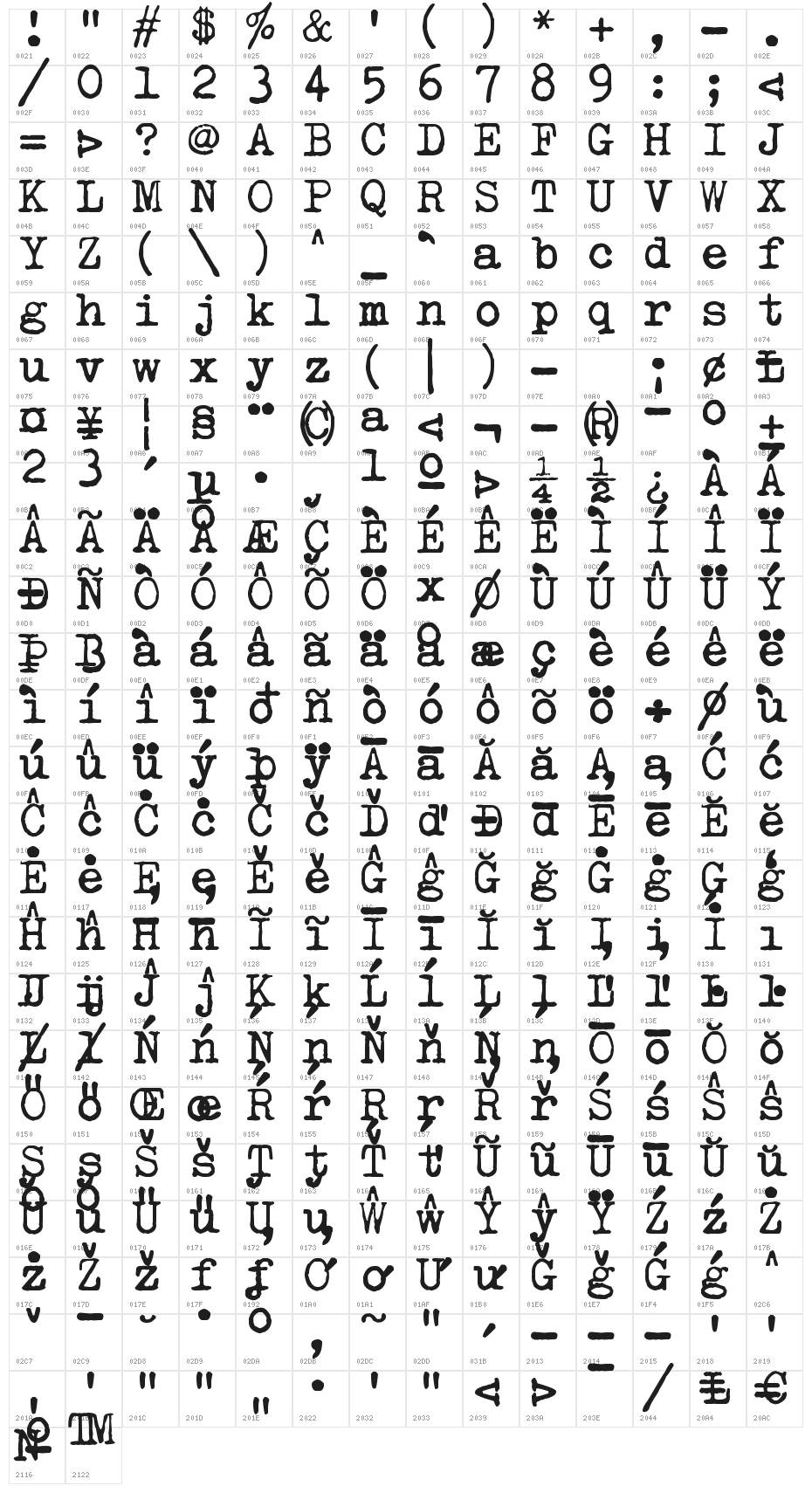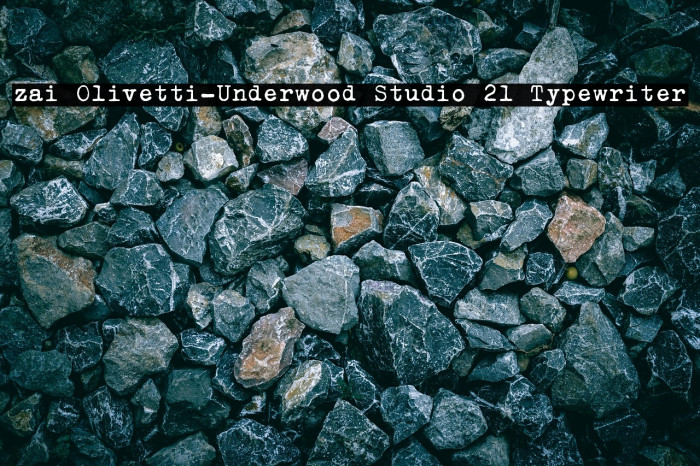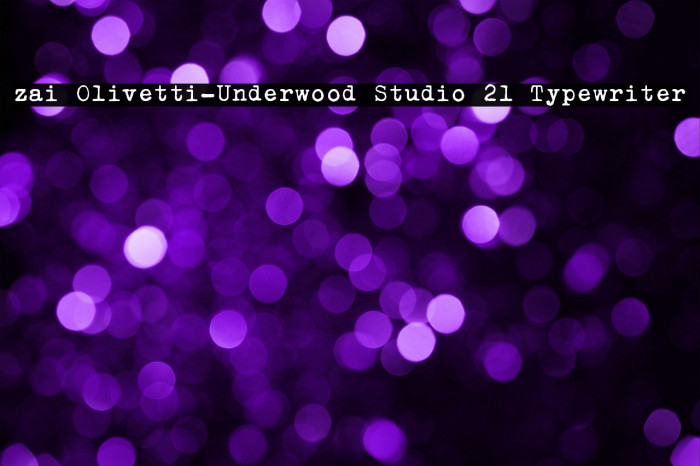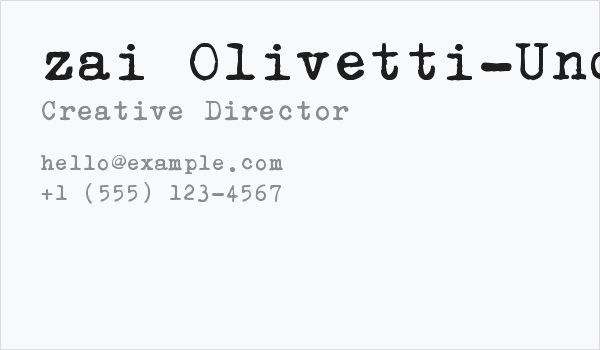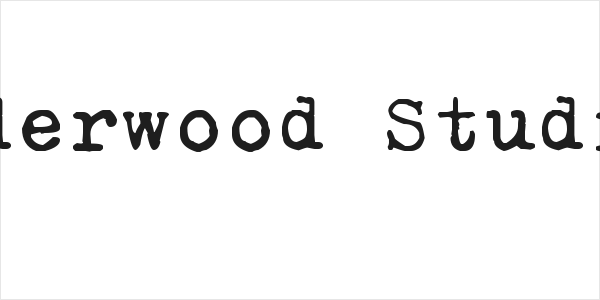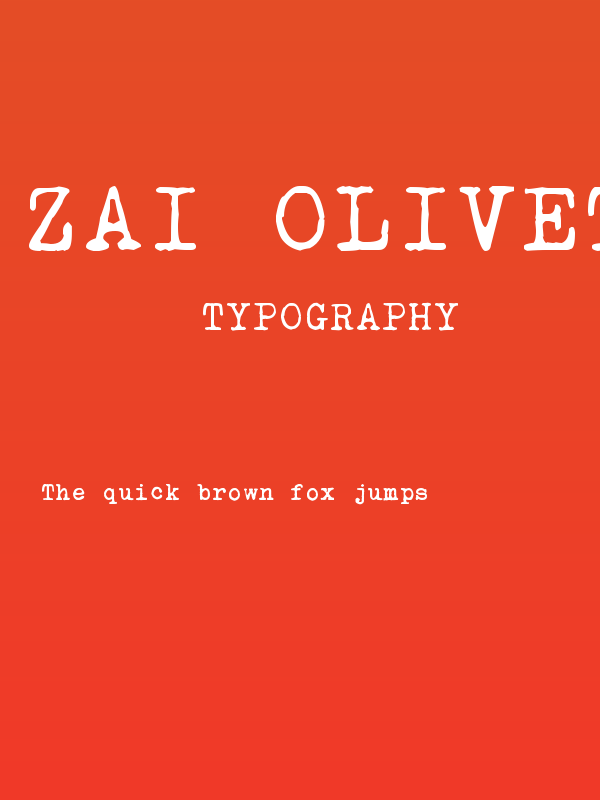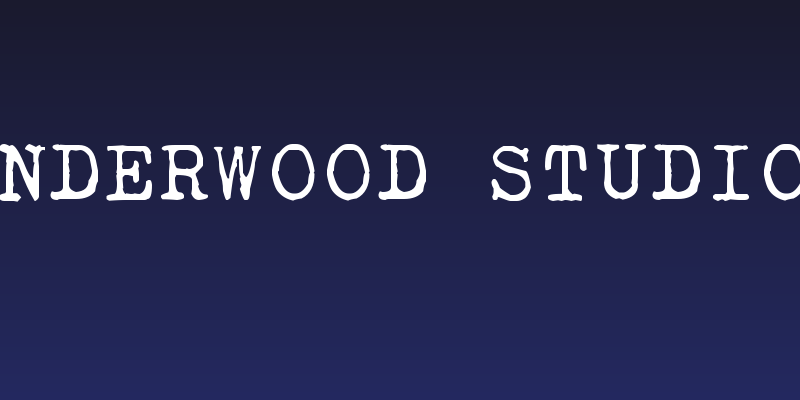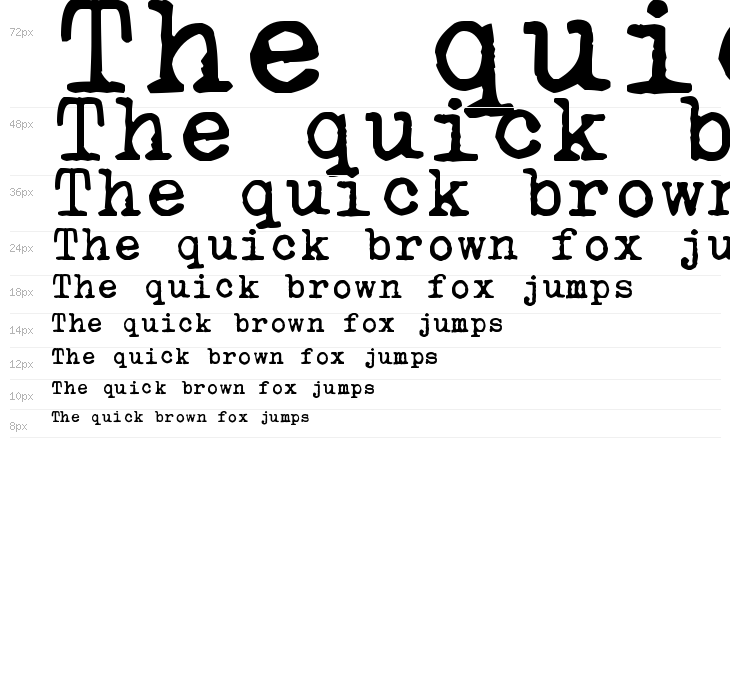
zai Olivetti-Underwood Studio 21 Typewriter Font
zai Olivetti-Underwood Studio 21 Typewriter Description
This font embodies a classic typewriter aesthetic with its monospaced characters and slightly irregular edges, reminiscent of vintage typewriting machines. Each letter is distinct, with a mechanical feel that adds a touch of nostalgia and authenticity. The uppercase and lowercase letters maintain a consistent style, while the numerals and special characters complement the overall design. The font's imperfections and varied stroke thicknesses give it a unique charm, making it ideal for projects that require a retro or analog feel.
| Proposed Projects | Ideal for retro-themed designs, typewriter art, vintage posters, and projects requiring an authentic analog touch. |